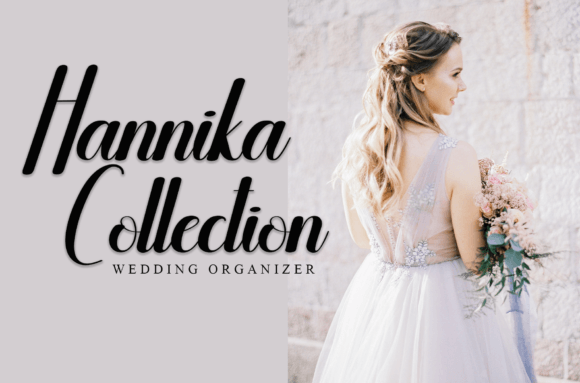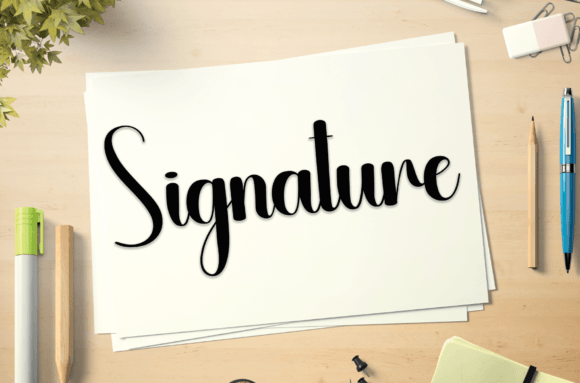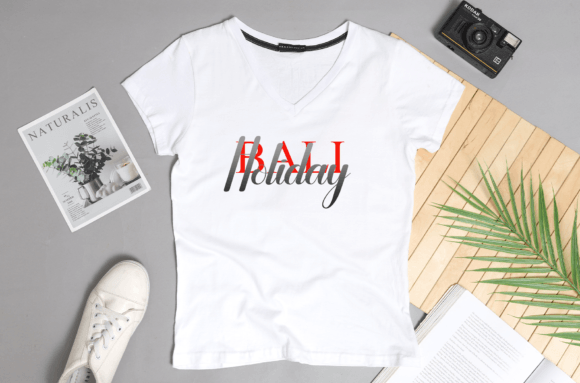
Introduction to Outday Font
Outday is a sweet and friendly handwritten font.
Fresh and neat, this font is ideal for writing wedding invitations, cards, or any other design that might need a fun touch .